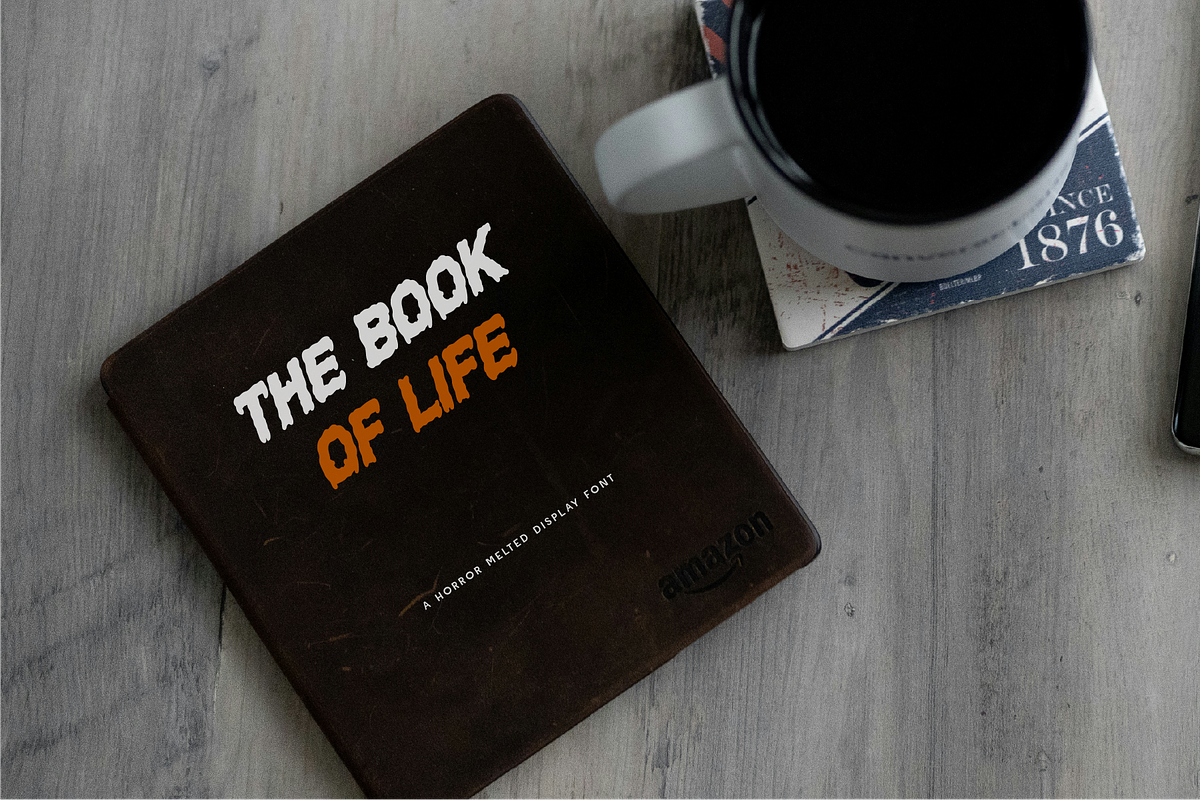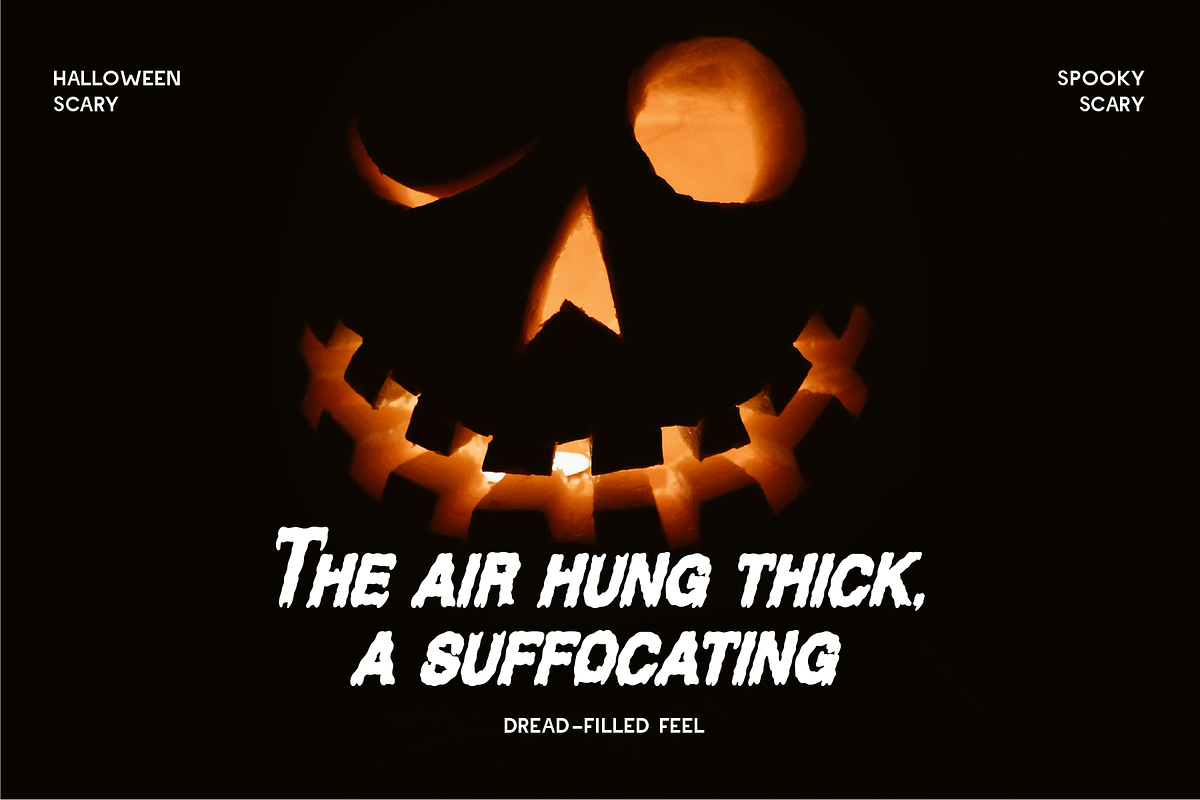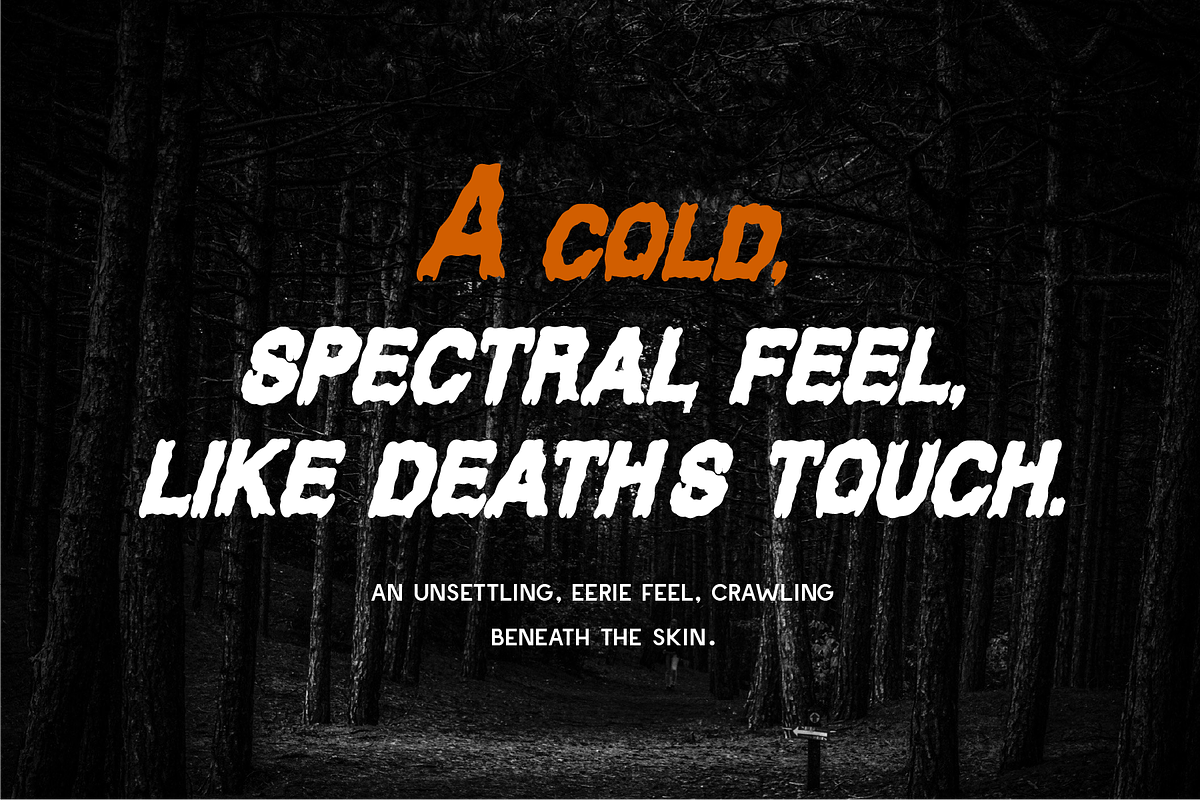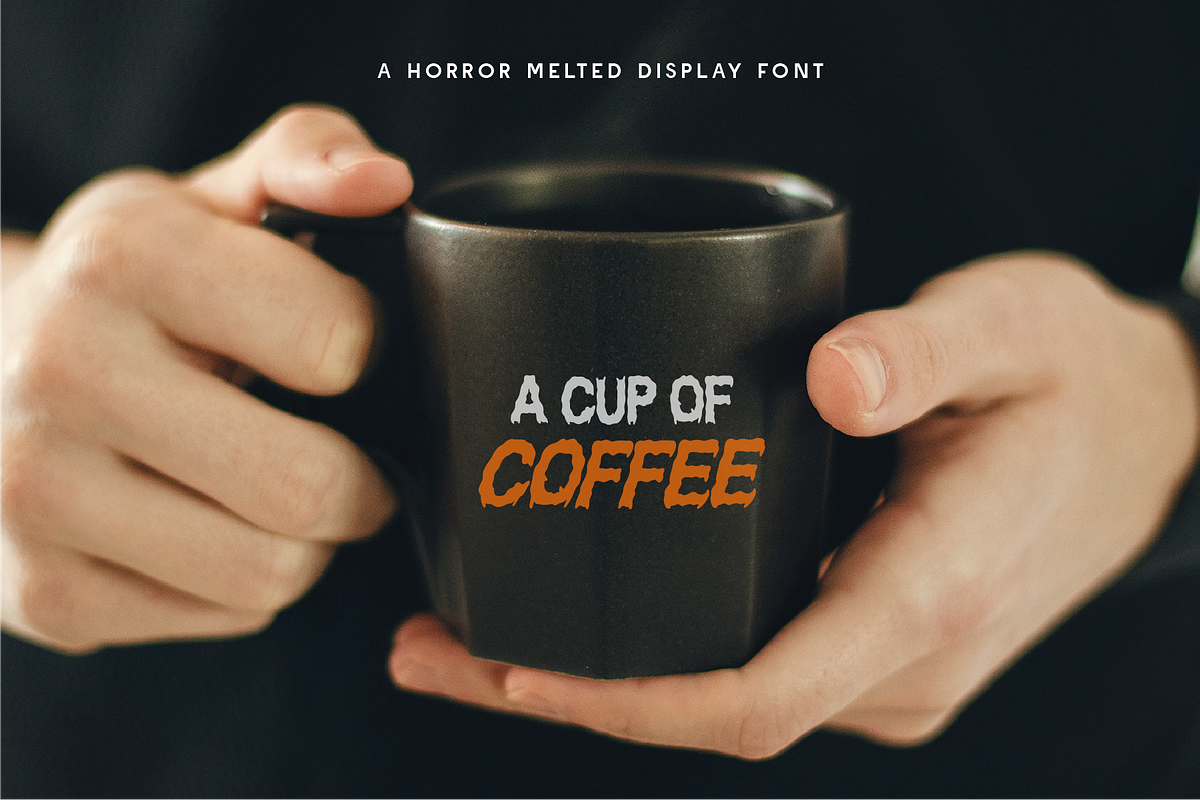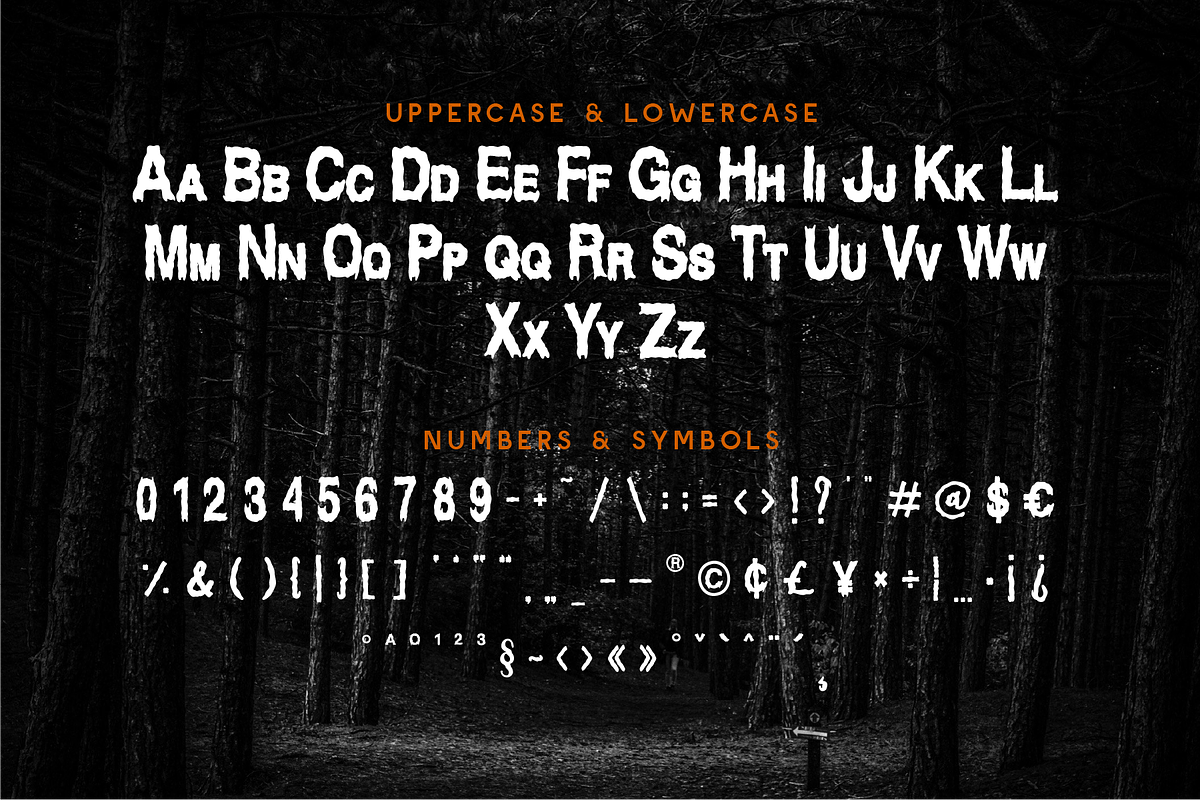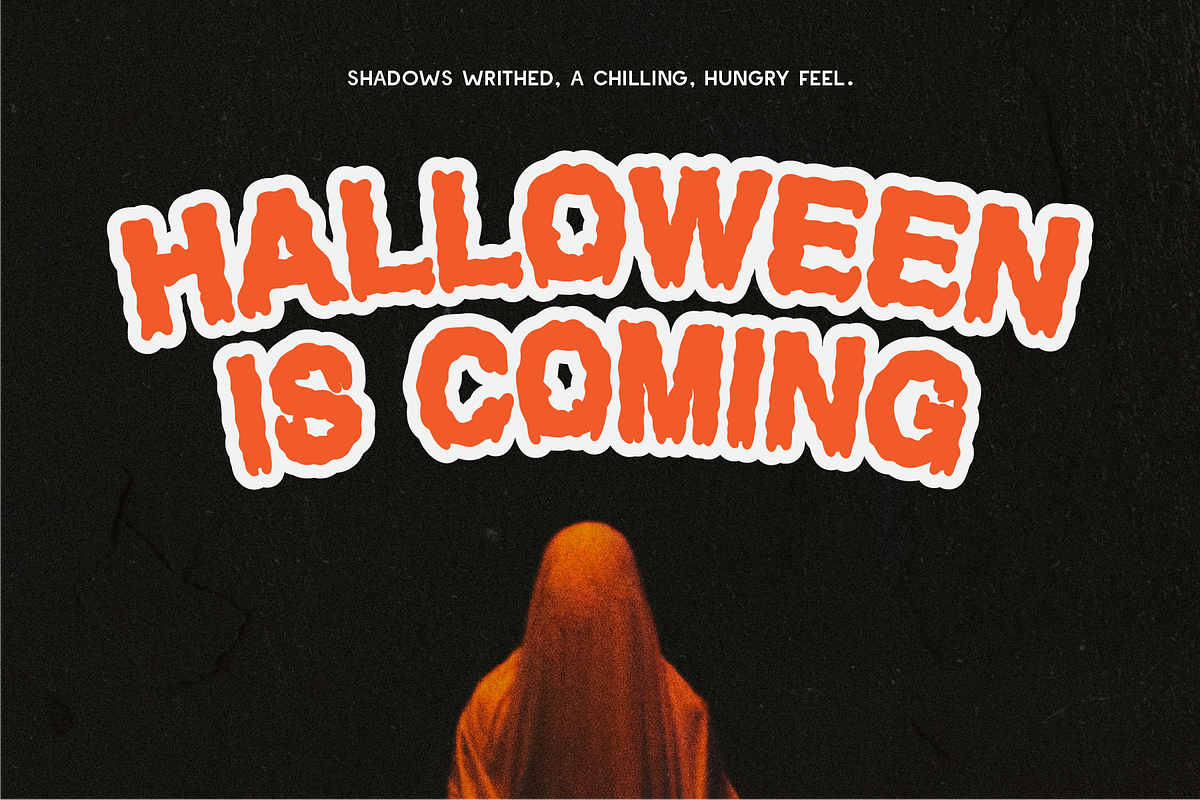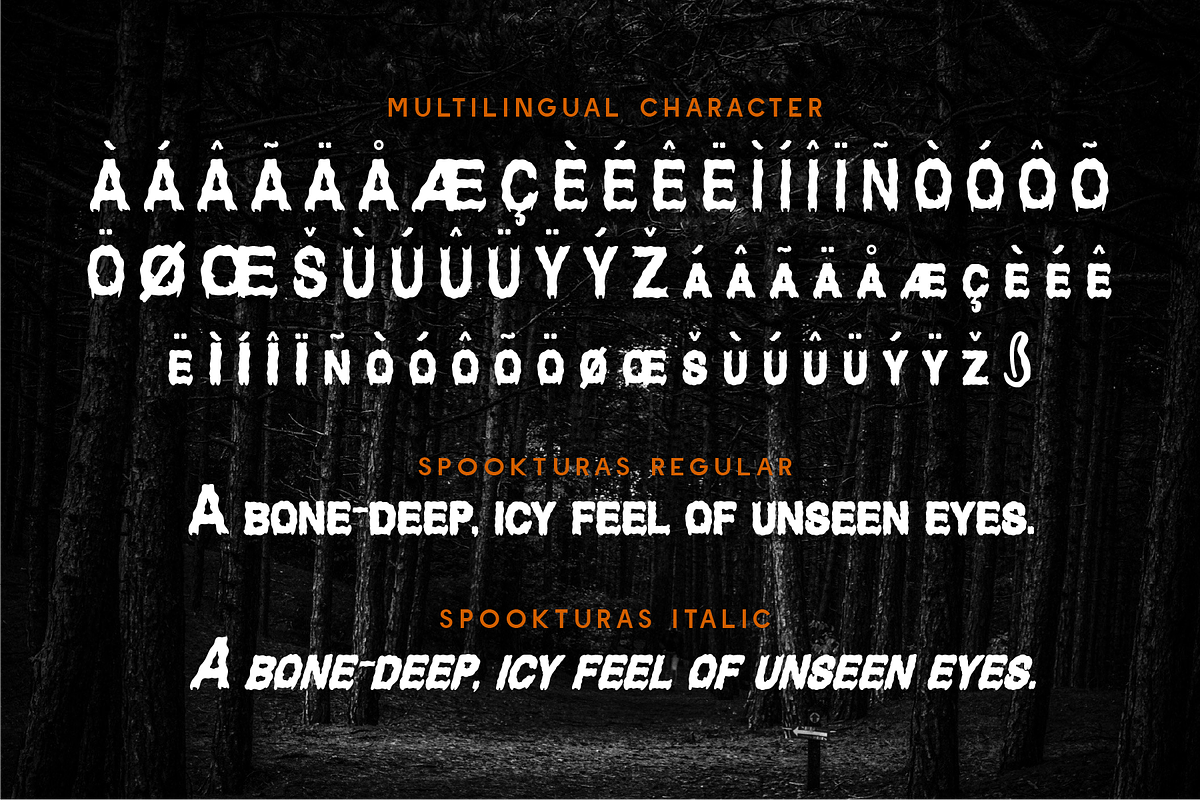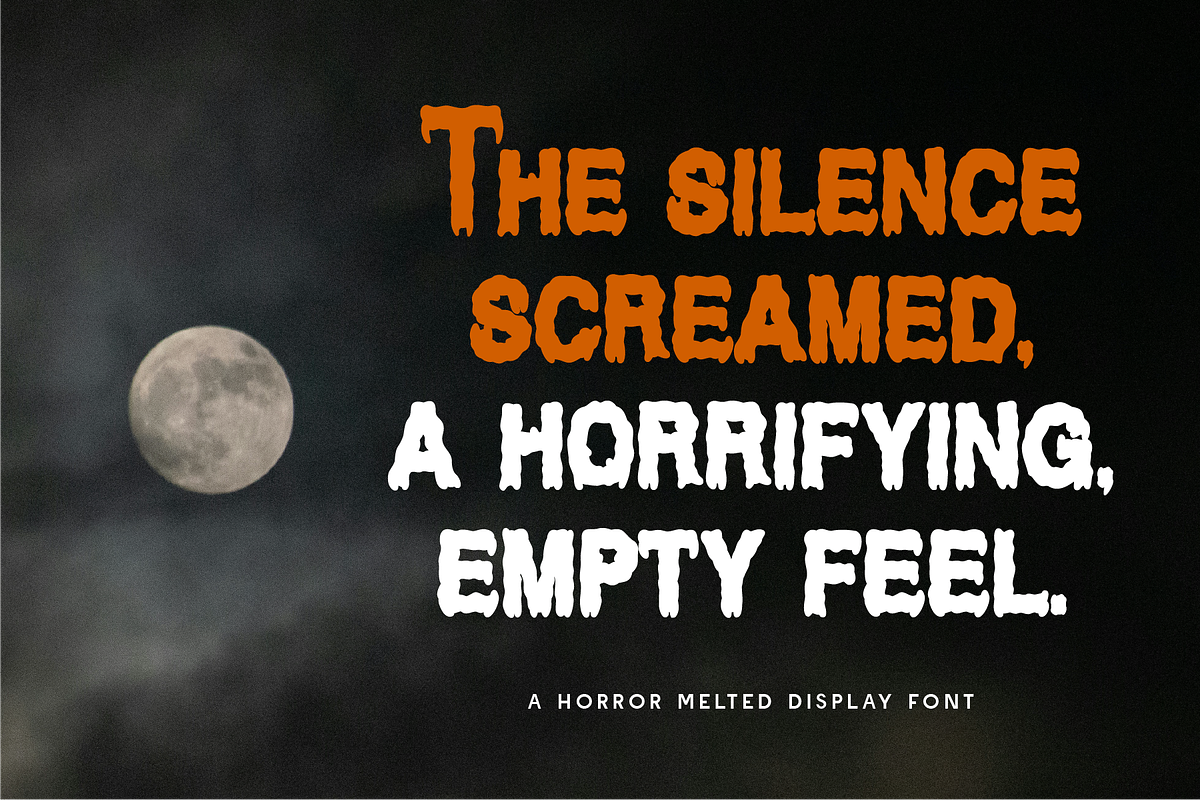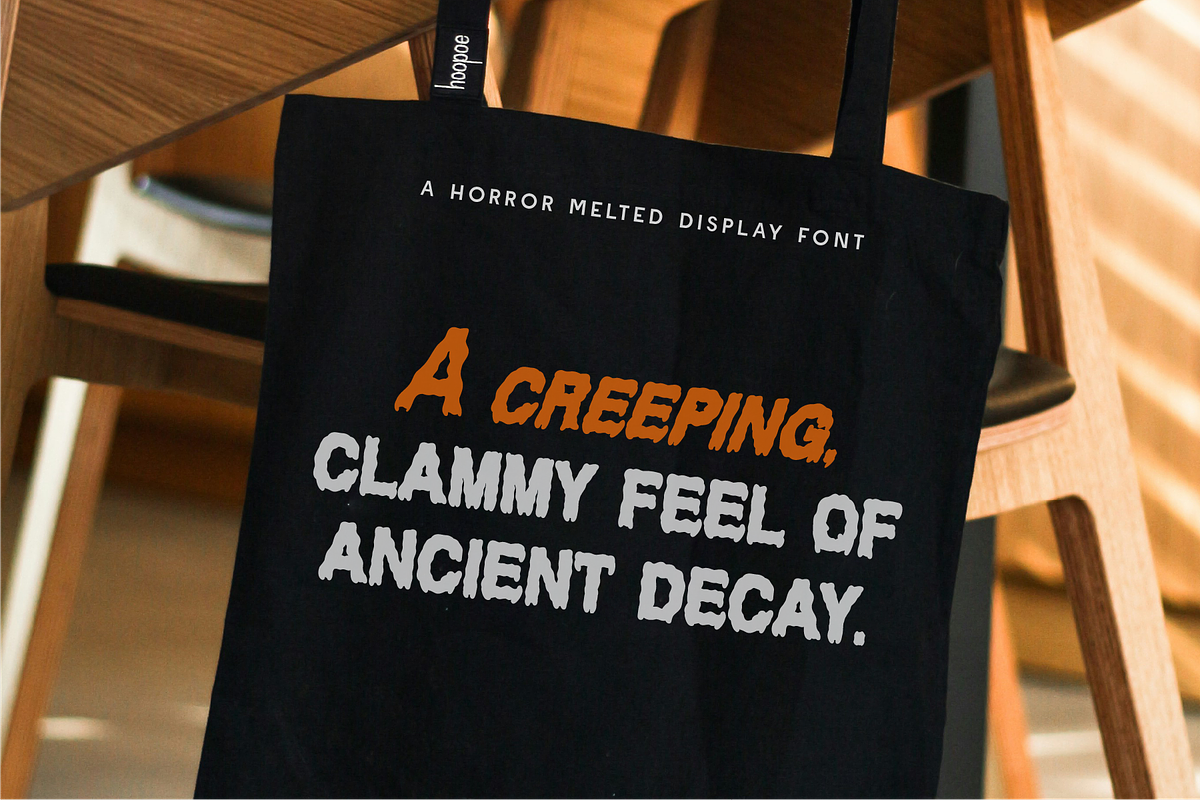
Spookturas - Horror Melted Display
Spookturas – A Dripping & Terrifying Horror Melted Display Font Dare to disturb with Spookturas, a horror melted display font that oozes with fright and fear! With its dripping, deformed characters and unsettling texture, this font is crafted to send chills down your viewers’ spines. Whether it’s Halloween promos, horror posters, scary movie titles, eerie invitations, or haunted house branding, Spookturas delivers the perfect dose of terror. Designed to look like it’s melting off the screen, this typeface evokes grunge, decay, and monstrous vibes, ideal for any design that dares to be dark, bold, and haunting.
Why Choose Spookturas?
🩸 Melting Horror Aesthetic: Perfect for Halloween, horror, and thriller themes.
👻 Creepy & Captivating: Oozing letterforms that grab attention and amplify suspense.
🕯 Ideal for Posters, Titles & Branding: Instantly sets a sinister tone.
🌍 Multilingual Support: Includes numbers, symbols, and extended character sets. Summon the scream factor and take your spooky design to the next level. Download Spookturas today and let your type bleed with horror. ☠️🎃
- Regular and Italic